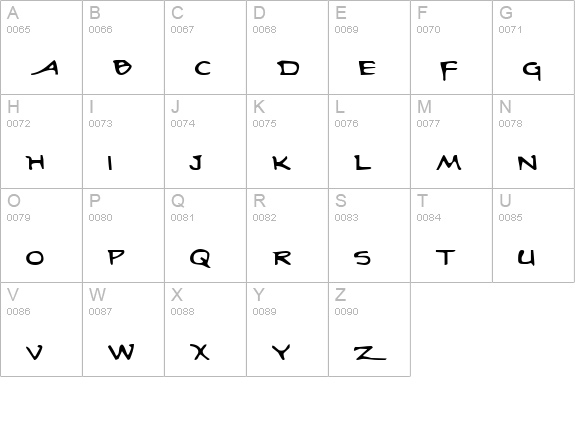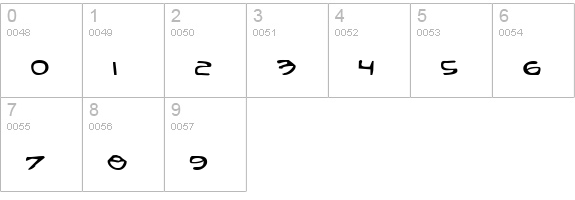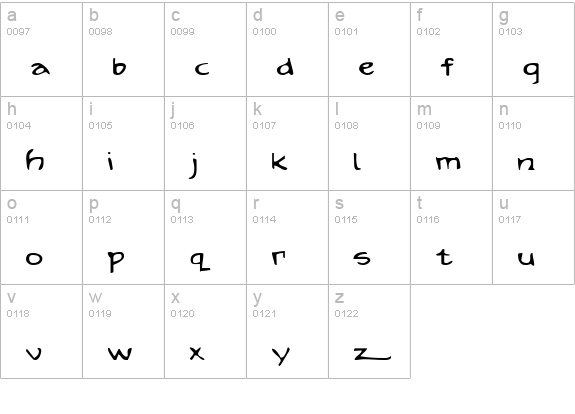
Arilon Expanded is a distinctive, extended-width variant in the Arilon typeface family \xE2\x80\x94 well suited to design and typography projects.
Arilon Expanded font is a modern and stylish typeface that exudes sophistication and versatility. With its elongated and sleek letterforms, this font is perfect for a wide range of design projects, from branding to editorial design. The extended width of the characters gives your text a bold and impactful presence, making it stand out effortlessly. What makes Arilon Expanded even more appealing is that it is available for free download at FontsMarket.com. This means that you can elevate your designs with this premium font without any cost involved. Whether you are working on a personal project or a client's commission, Arilon Expanded font is a valuable addition to your font library. Download it today and explore the endless possibilities it offers for your creative endeavors.